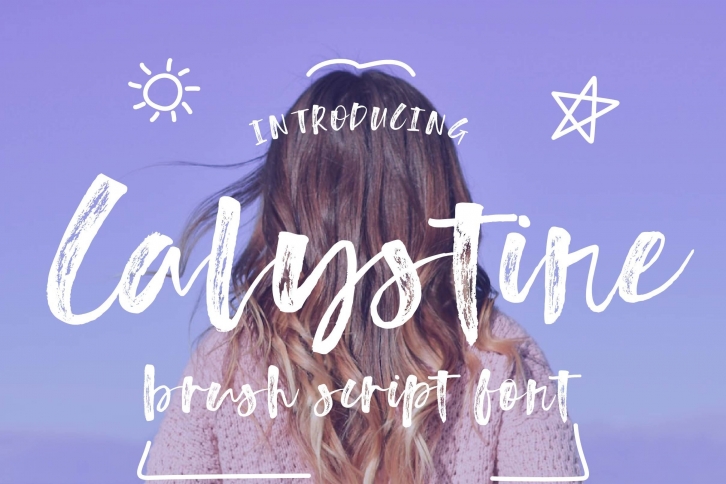
Calystine FONT Download
Calystine would be perfect for photography, watermarks, social media posts, advertisements, logos & branding, invitations, product design, labels, stationery, wedding designs, product packaging, special events, and other projects.